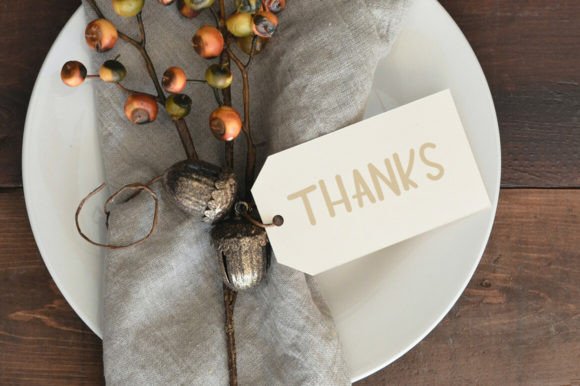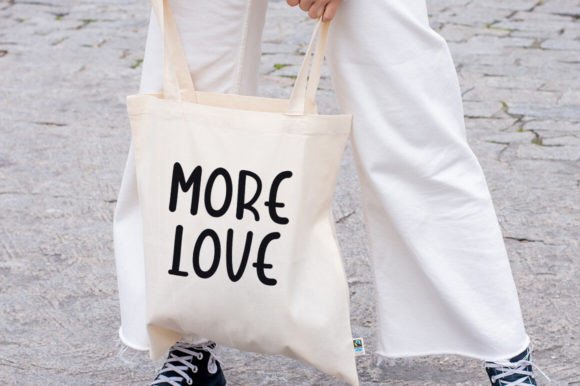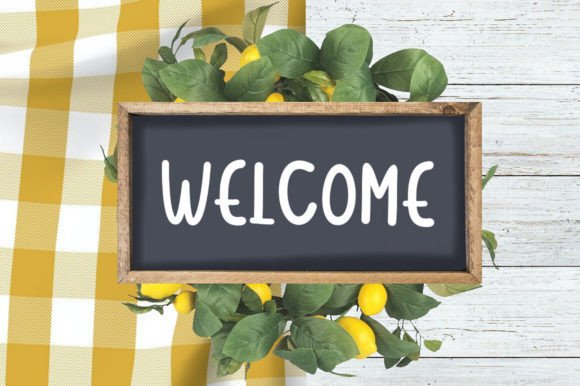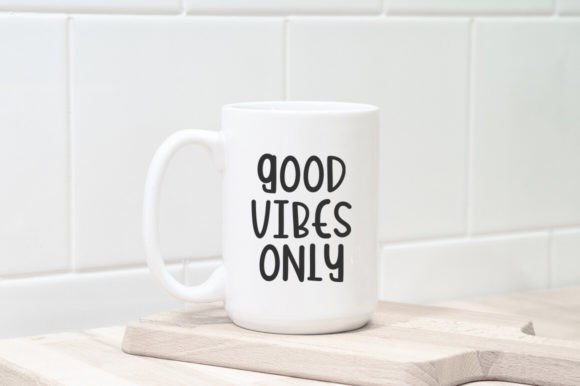
Introduction to Honey Please Font
Honey Please font is a handwriting font with a sweet look and flourishing character.
Honey Please can be used for various types of design needs such as branding materials, social media, quotes, invitations, business cards, movie covers, etc .
Why Choose Honey Please Font?